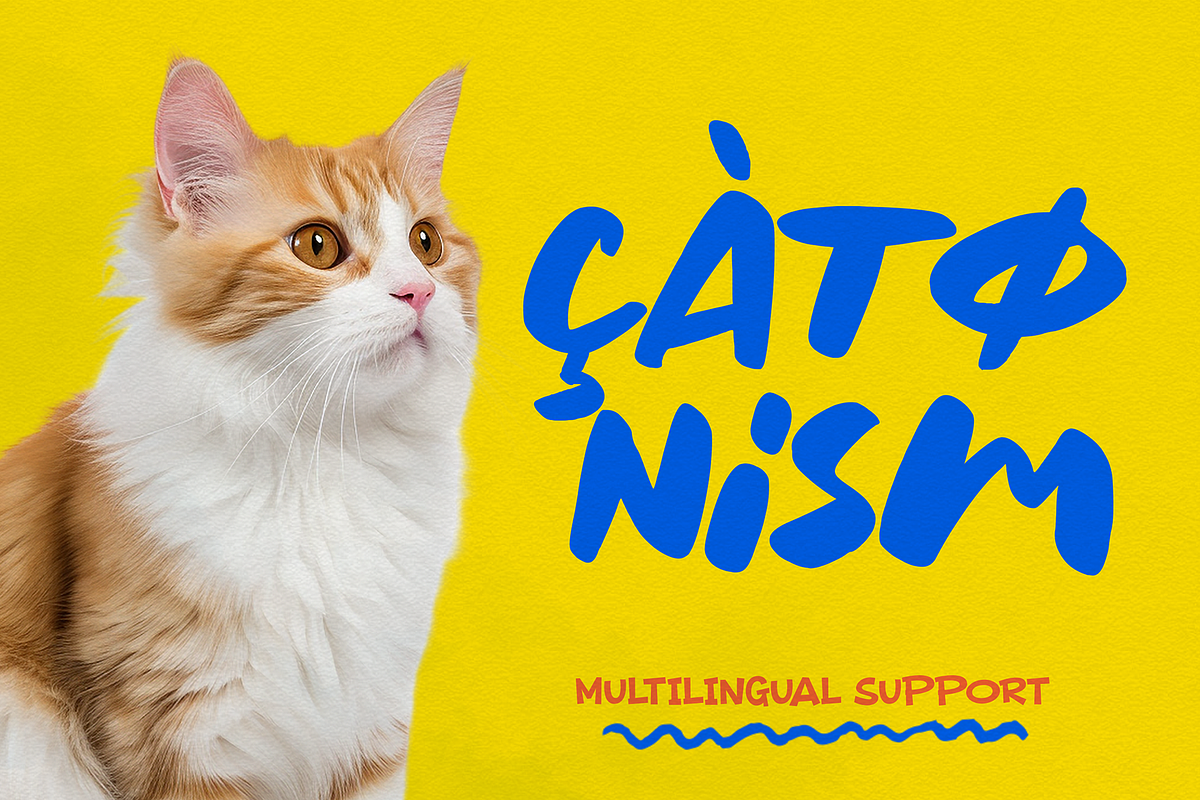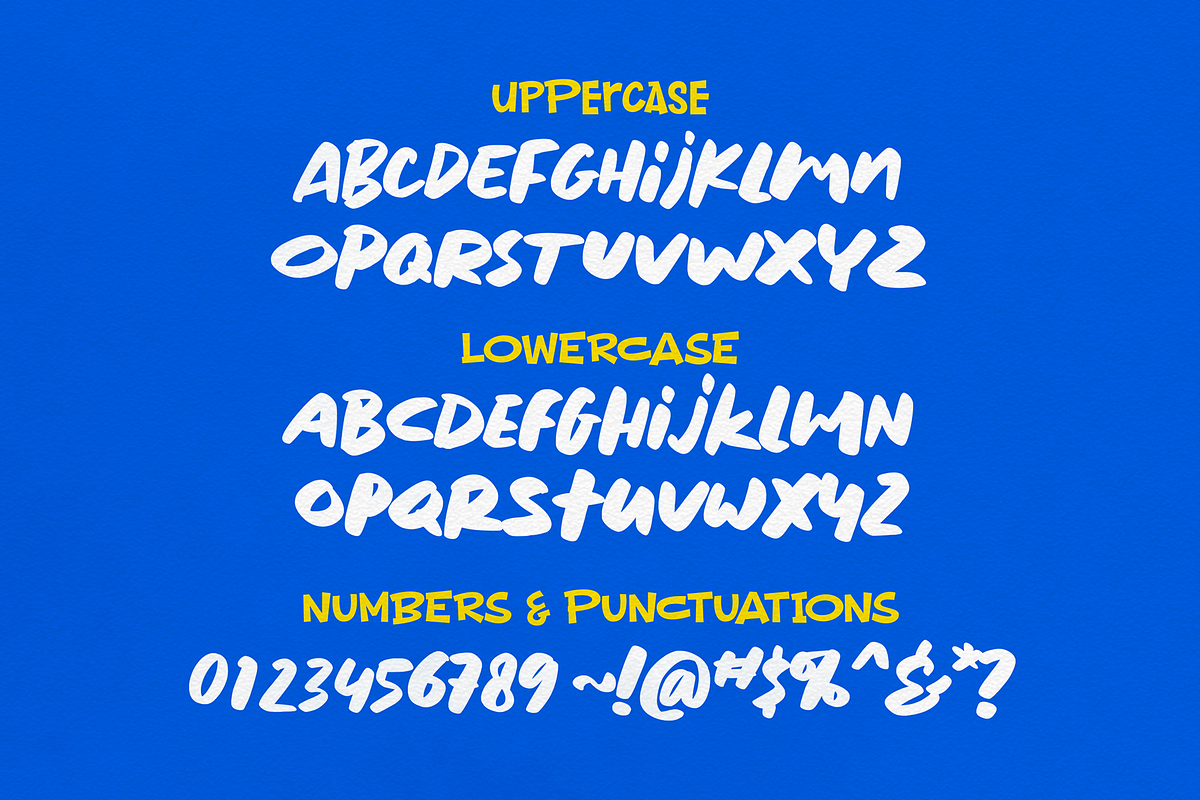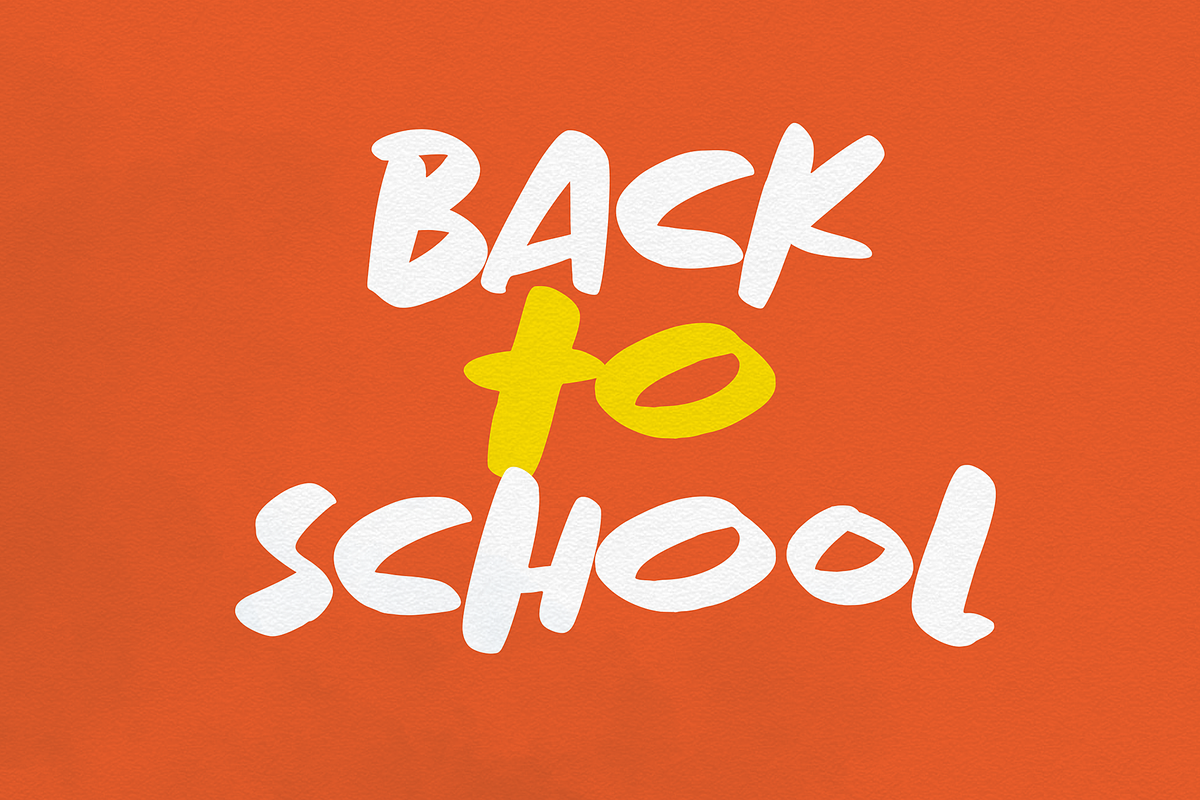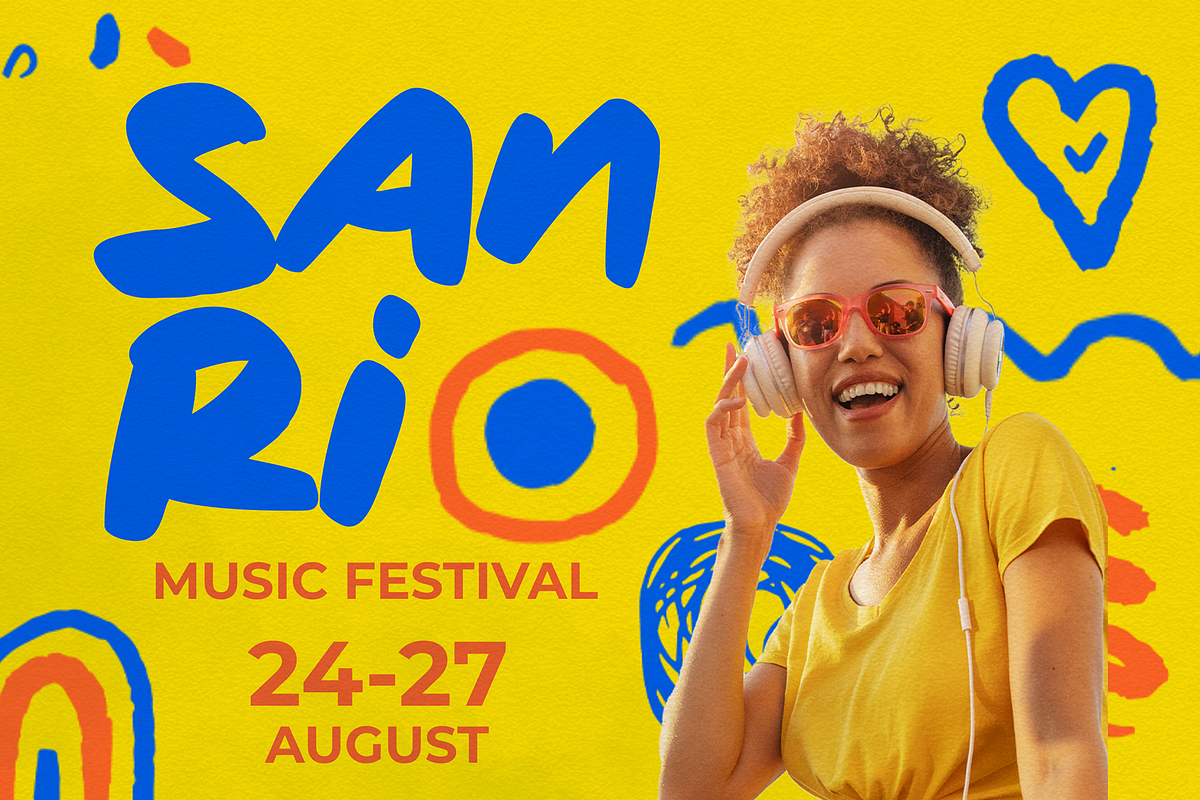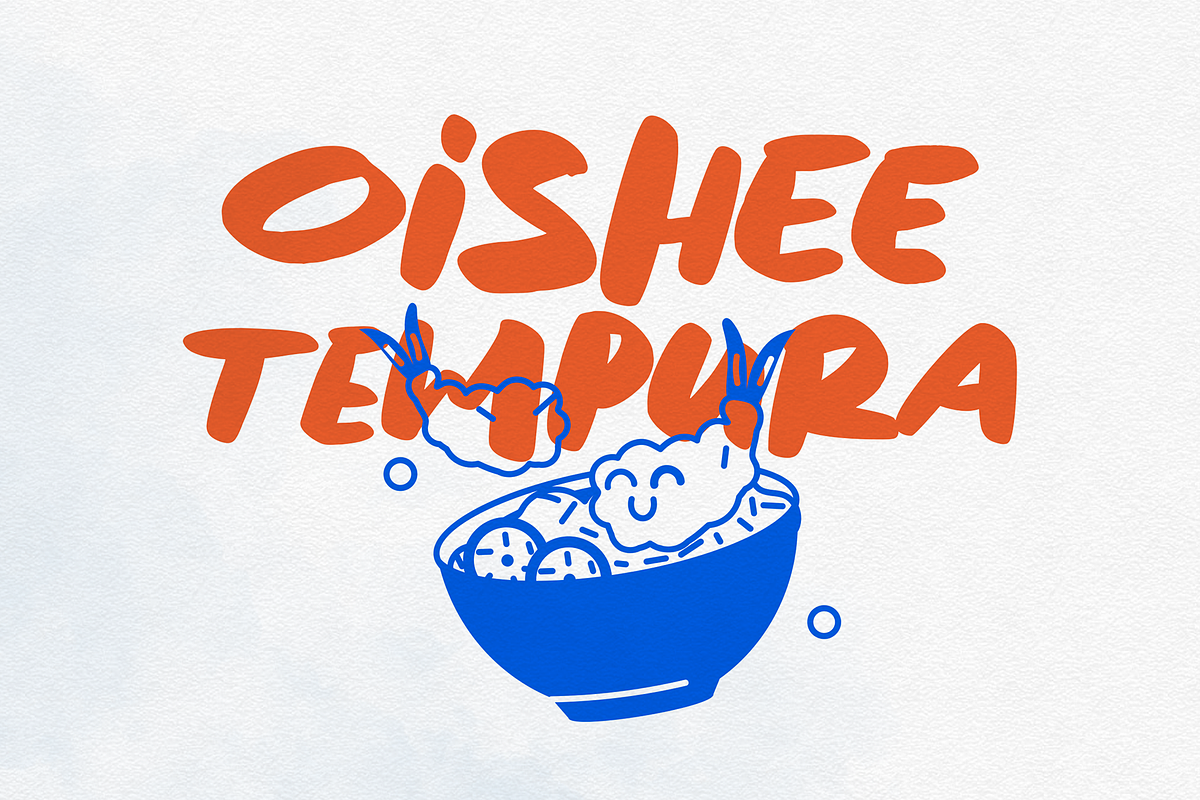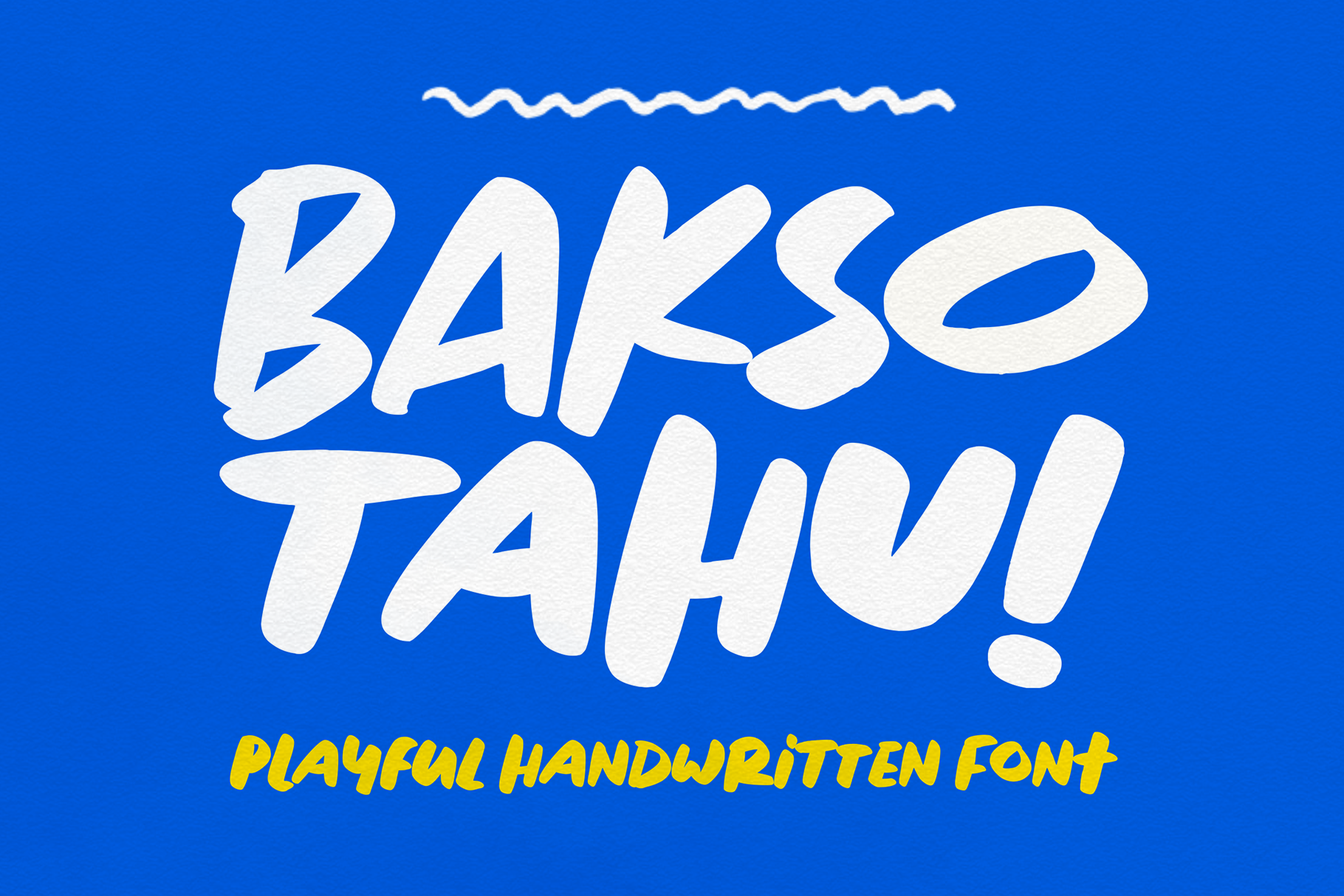
Bakso Tahu - Playful Font
Introducing Bakso Tahu! – the Playful Marker Handwritten Font that brings a sense of fun and spontaneity to your designs. Perfect for projects that need a personal and lively touch, Bakso Tahu! captures the essence of casual handwriting with its vibrant and dynamic style.
🎨 Playful and Spontaneous: Bakso Tahu! infuses your designs with a playful and energetic vibe. Its handwritten marker style exudes a sense of joy and creativity, making it ideal for projects that seek to engage and entertain.
🖊️ Handwritten Charm: The authentic marker strokes of Bakso Tahu! give it a personal and handmade feel. Each character is crafted to mimic natural handwriting, adding a unique and relatable touch to your text.
🌟 Versatile and Fun: Whether you're designing greeting cards, posters, or social media posts, Bakso Tahu! offers versatility and charm. Its playful nature makes it perfect for a variety of applications, bringing a cheerful and approachable look to any project.
📚 Perfect for Various Projects: From children's books and party invitations to branding and packaging, Bakso Tahu! adapts effortlessly to different design needs. Its lively style ensures your message is conveyed in a fun and engaging manner.
🚀 Eye-Catching Appeal: With its bold and dynamic letterforms, Bakso Tahu! grabs attention and leaves a lasting impression. The font's playful character makes your text stand out, ensuring your designs are both memorable and impactful.
Elevate your creative projects with Bakso Tahu! – the Playful Marker Handwritten Font that combines joyful spontaneity with handwritten charm. Ideal for adding a lively and personal touch to any design, Bakso Tahu! is your go-to font for creating vibrant and engaging text that truly stands out.